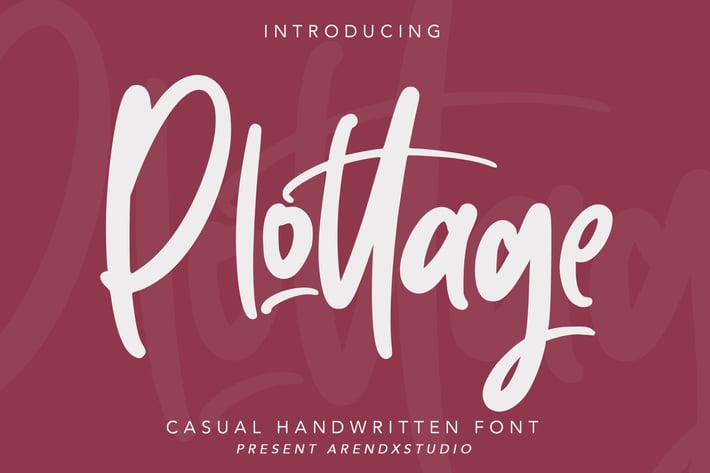
Pottage - Handwritten Font
Introducing a new font called Pottage - Handwritten Font inspired by urban fonts with sharp and beautiful letters that create fonts that are modern, trendy and elegant.
Pottage came with opentype features such stylistic alternates, stylistic sets & ligatures good for logotype, poster, badge, book cover, tshirt design, packaging and any more.